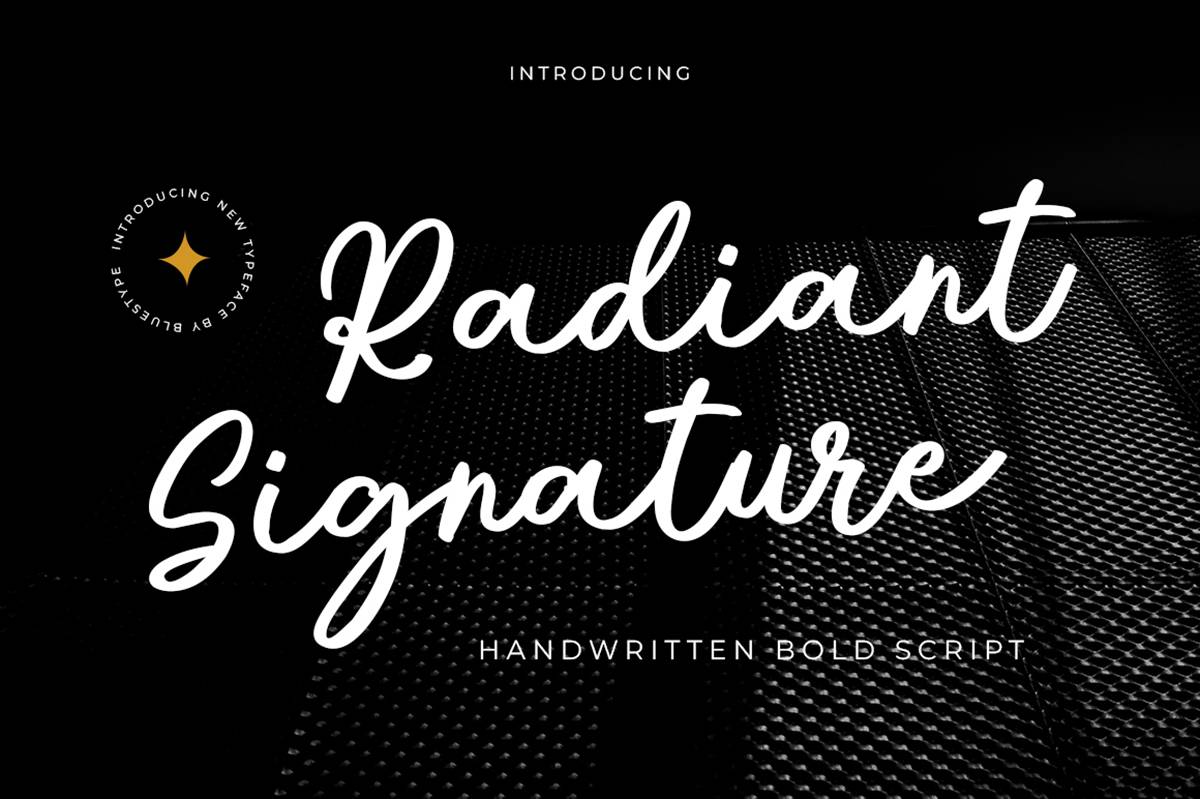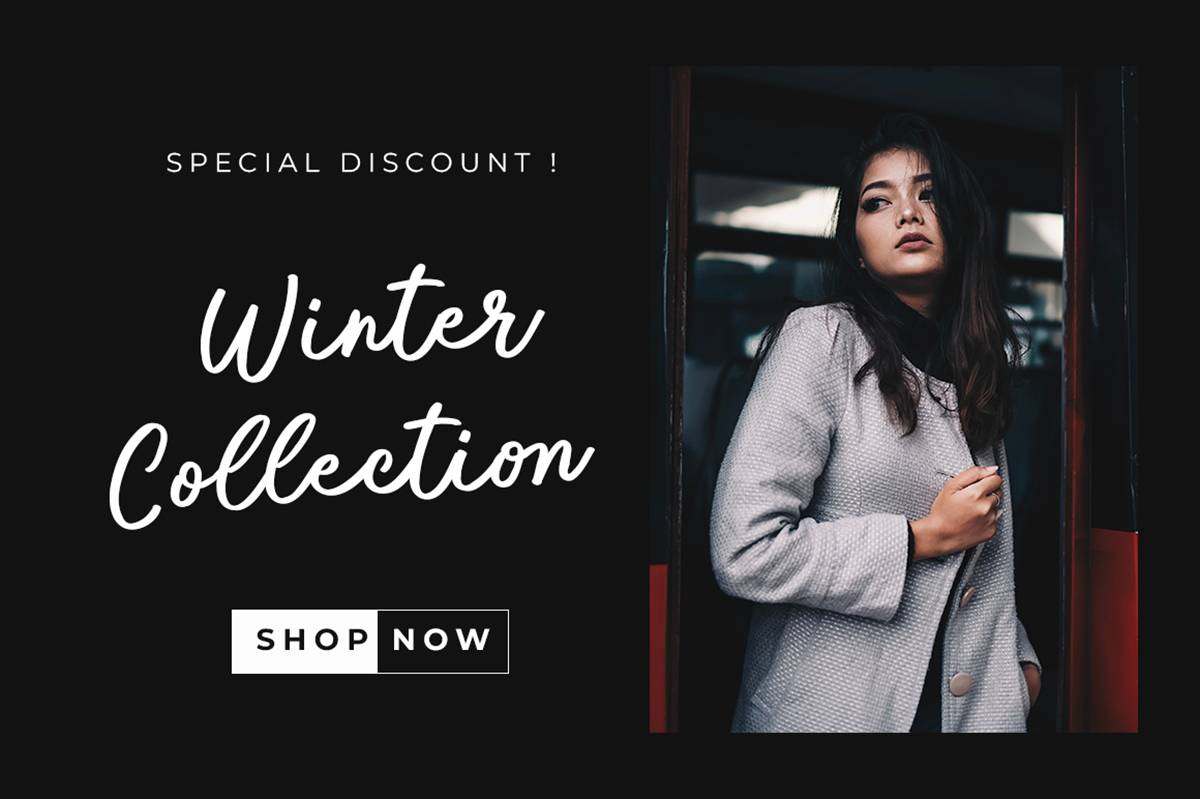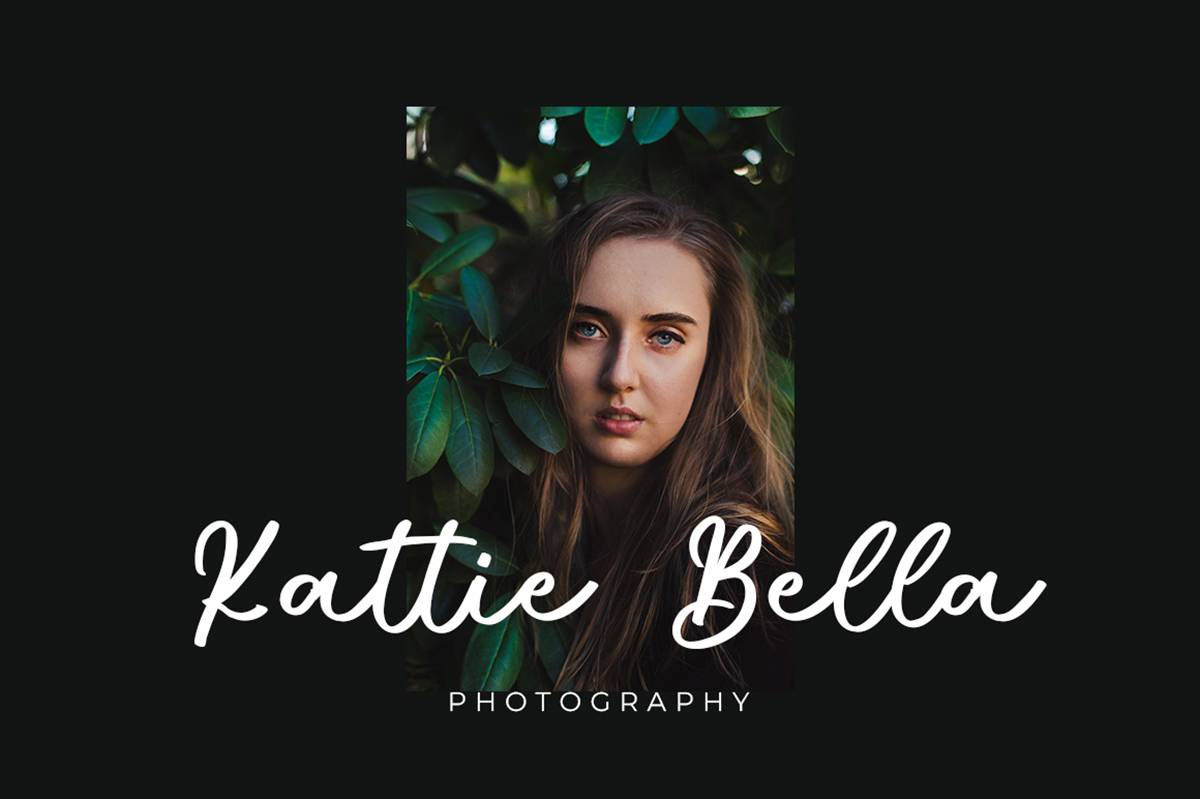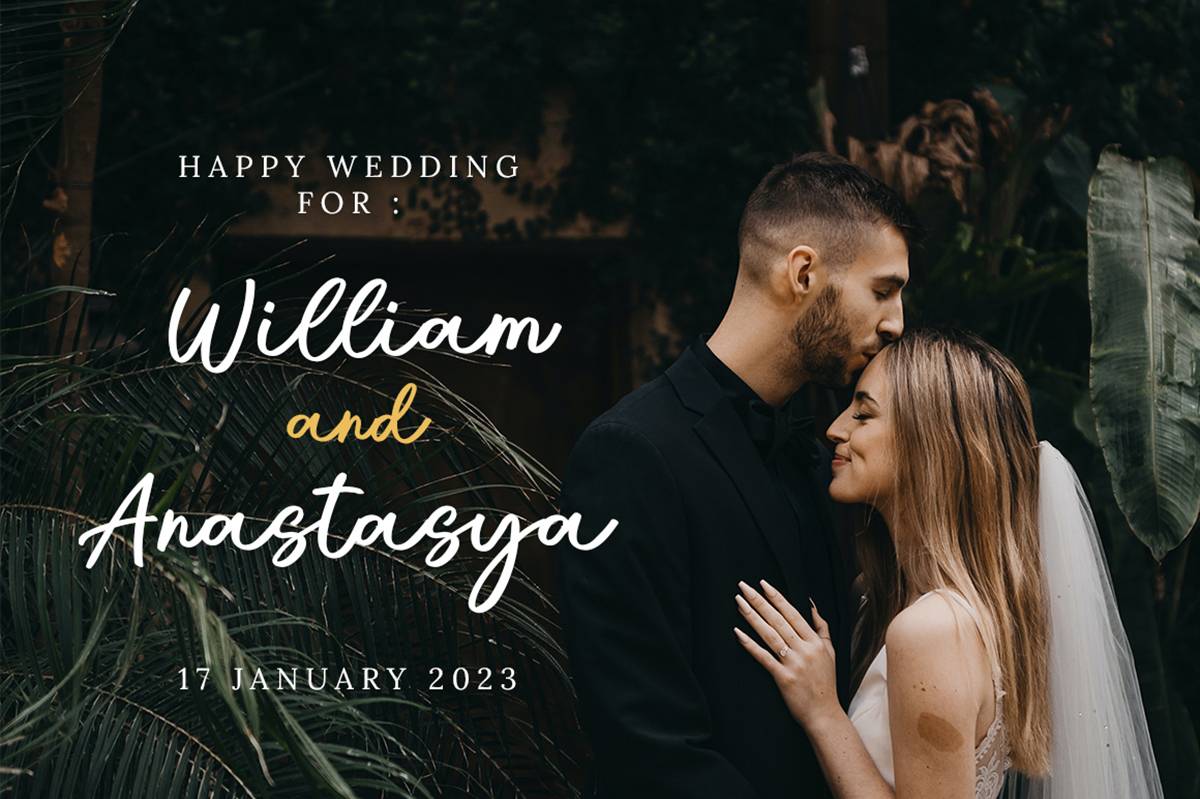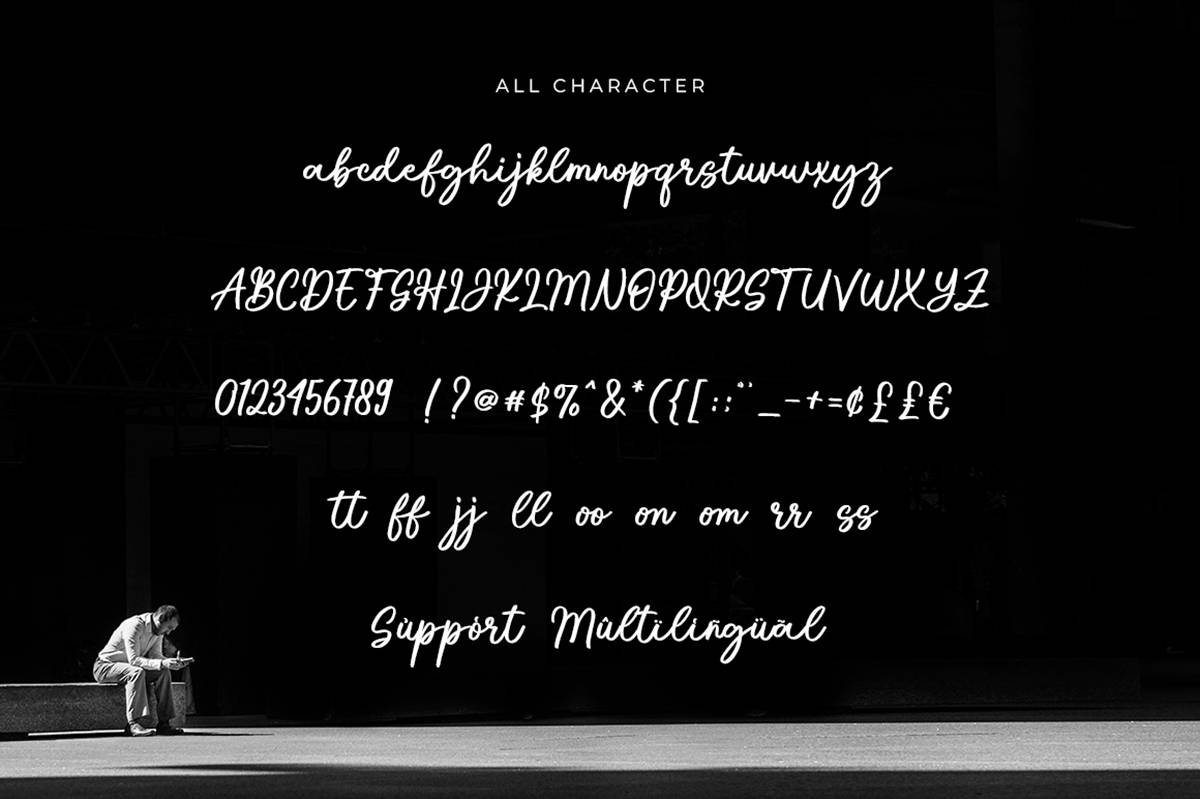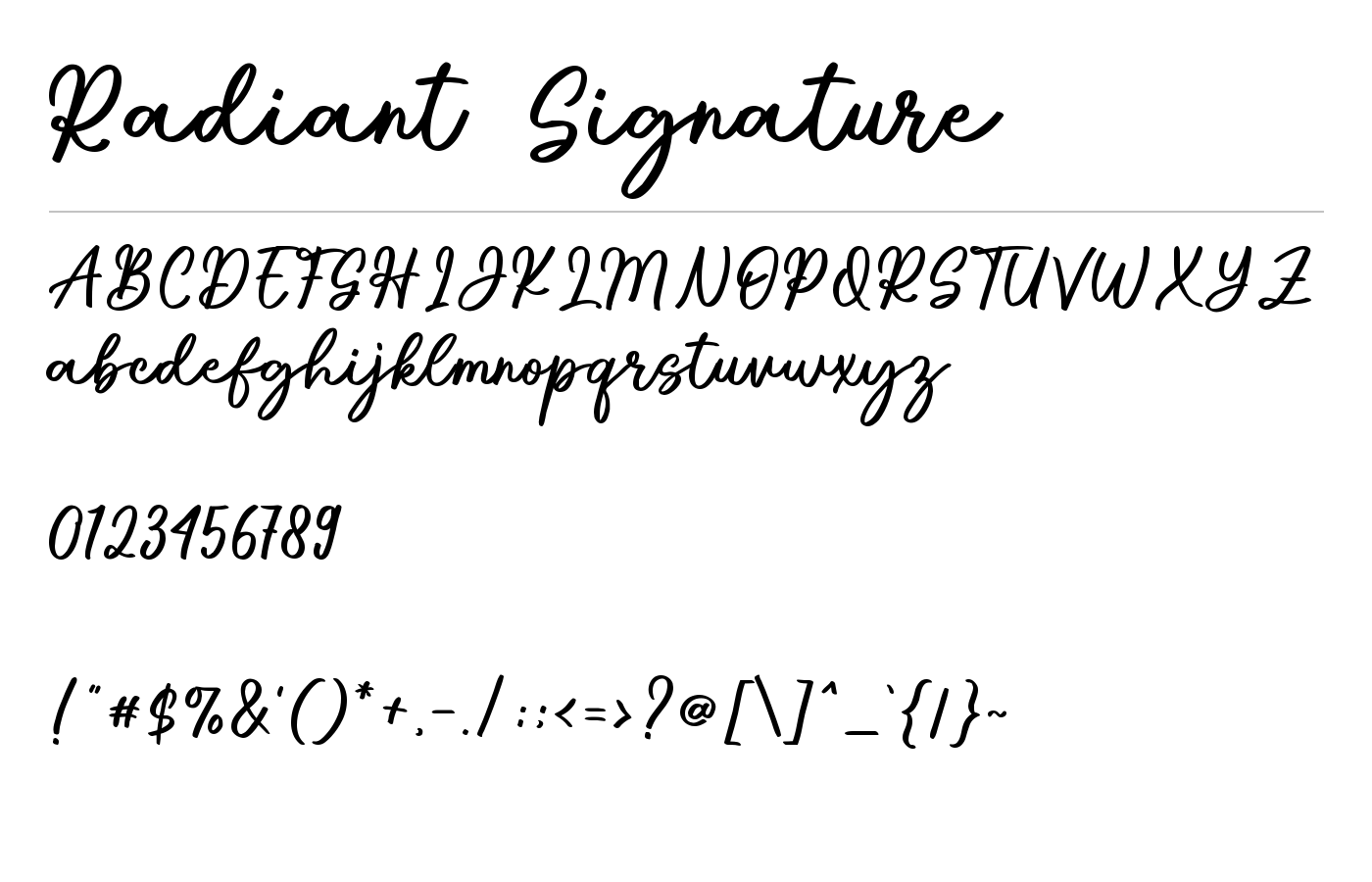
Radiant Signature is an elegant script font with smooth, flowing strokes that mimic natural handwriting, giving it a personal and sophisticated feel. Its moderate weight and slightly condensed letterforms make it perfect for stylish branding, invitations, and logos that want to convey a modern yet intimate touch. This font works beautifully in designs that seek a handwritten, refined appearance without losing readability.
Radiant Signature Font
About Radiant Signature Font